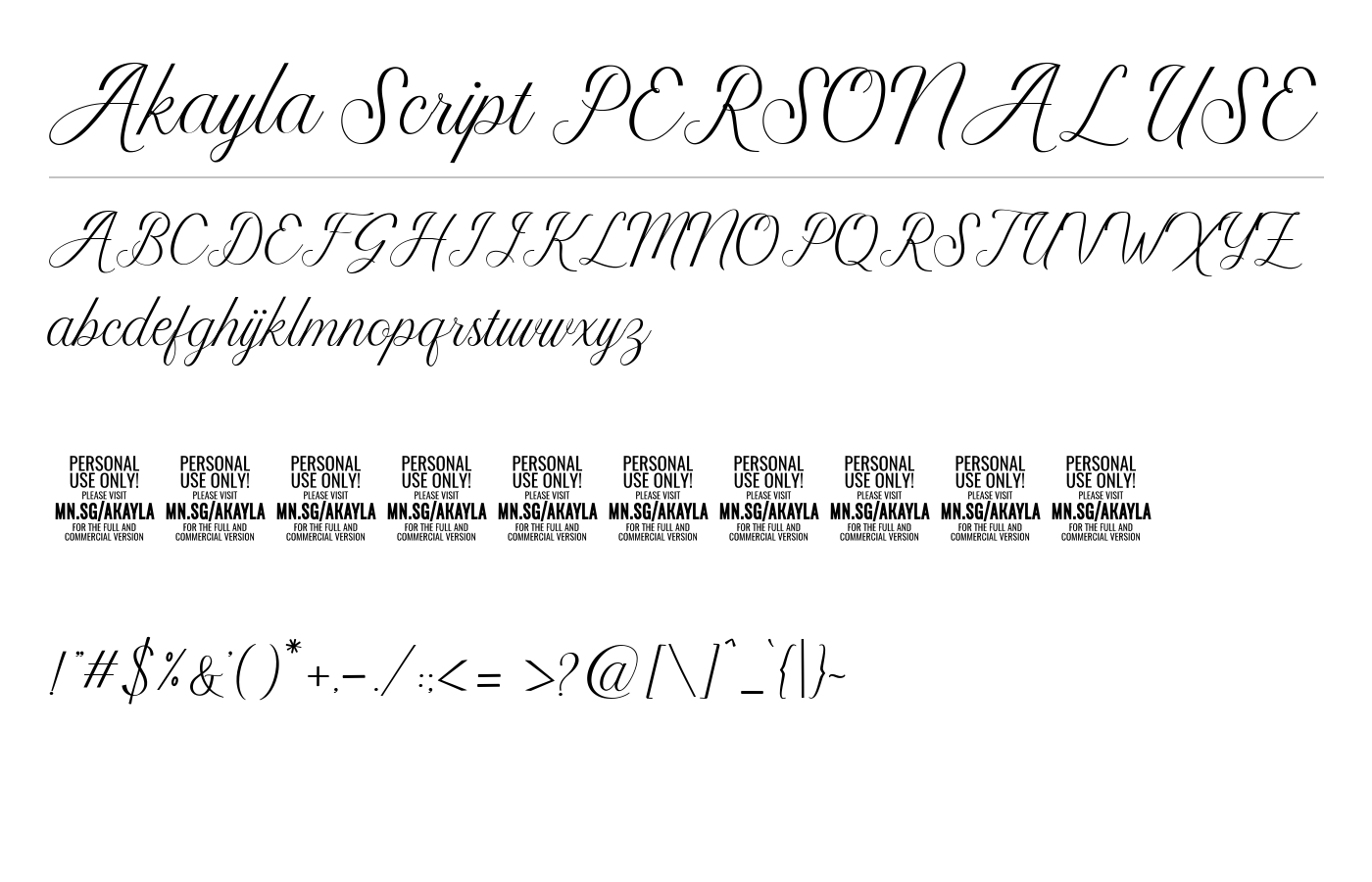
Akayla Script is an elegant and delicate script font characterized by its fine, flowing strokes and graceful curves. Its tall, slender letterforms with subtle contrasts and a handwritten feel make it perfect for invitations, branding, and any design that requires a touch of sophistication and femininity. This font works best in headlines and decorative uses where a refined and classy atmosphere is desired.
Akayla Script PERSONAL USE Font
About Akayla Script PERSONAL USE Font